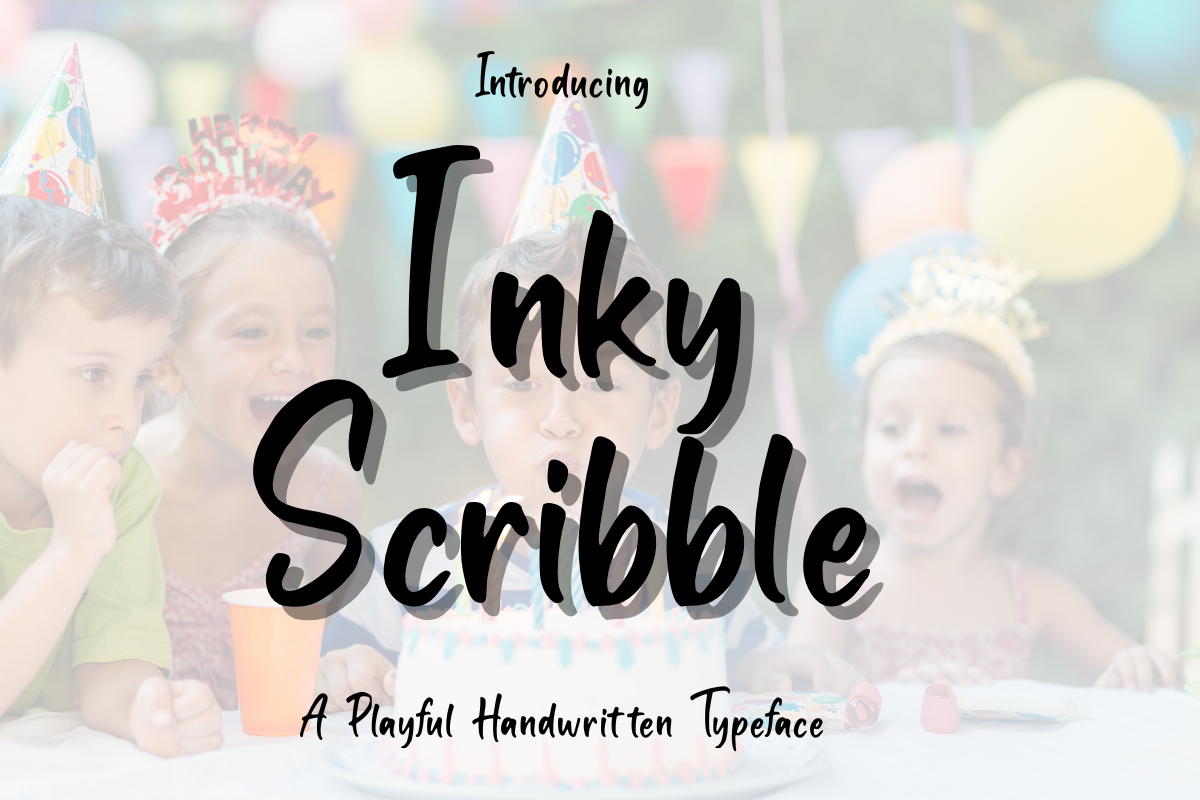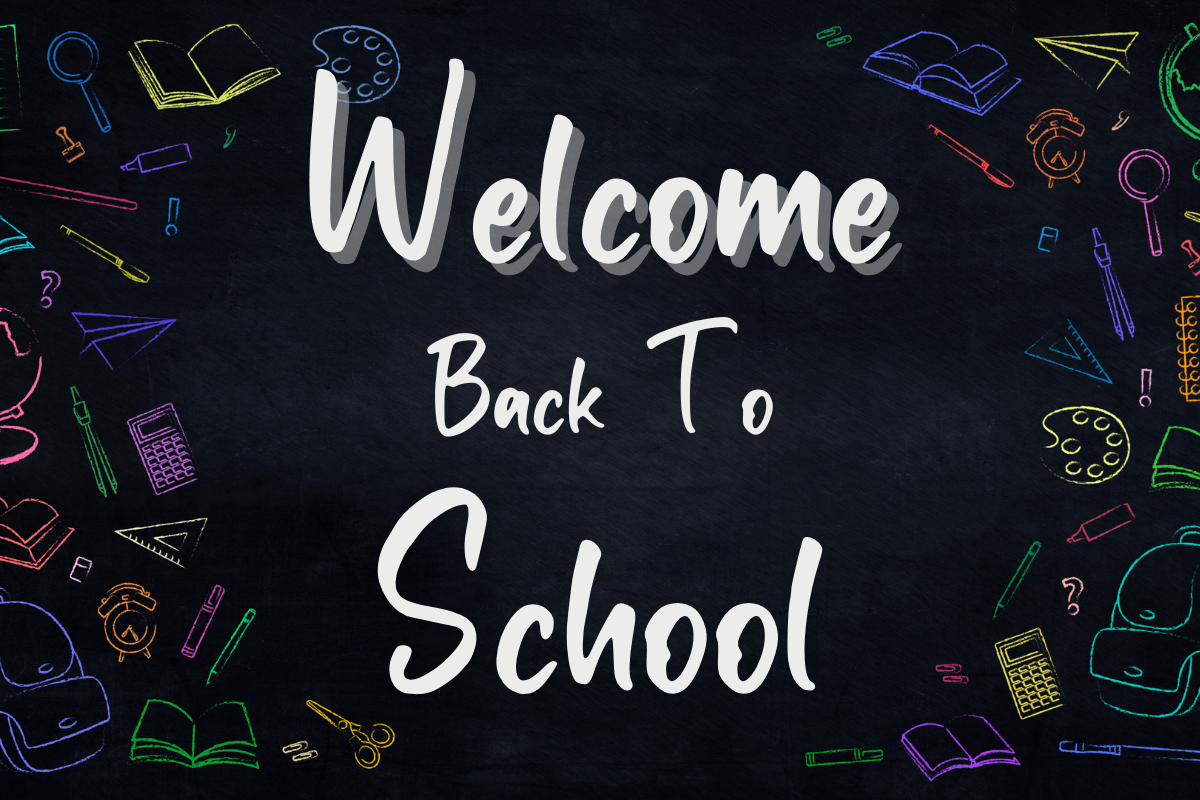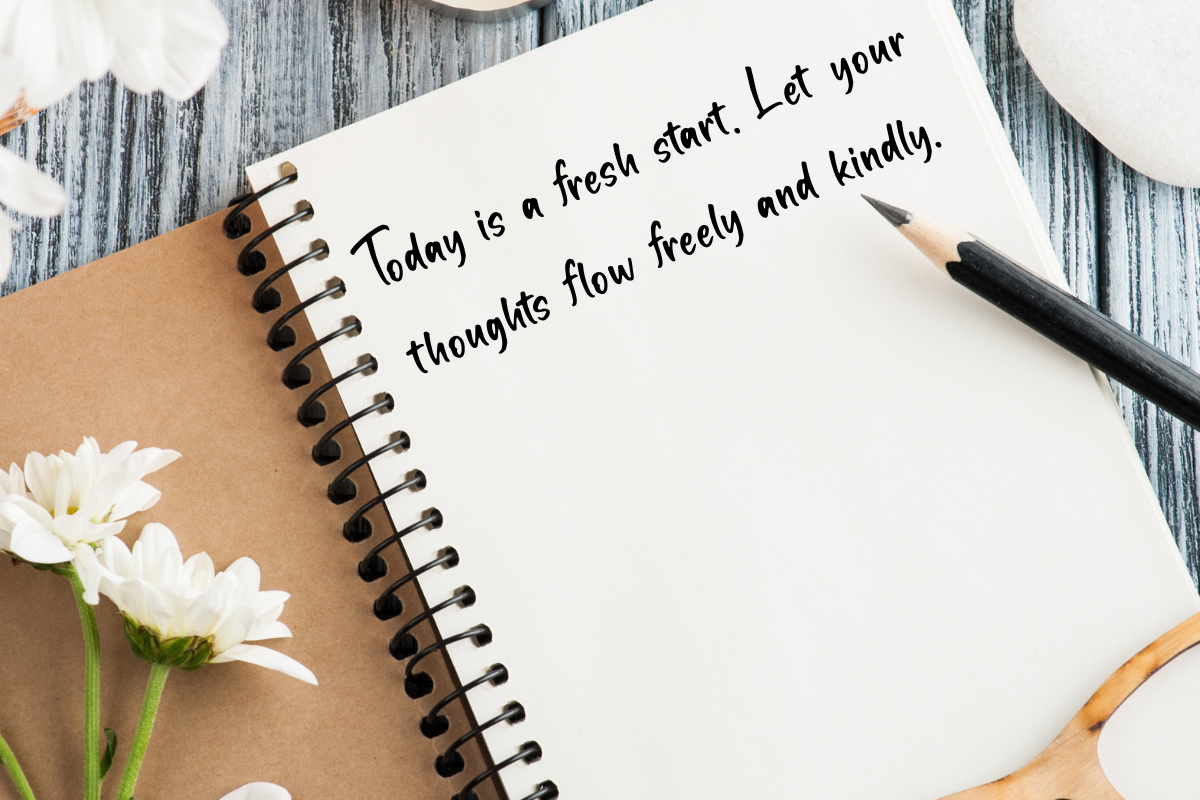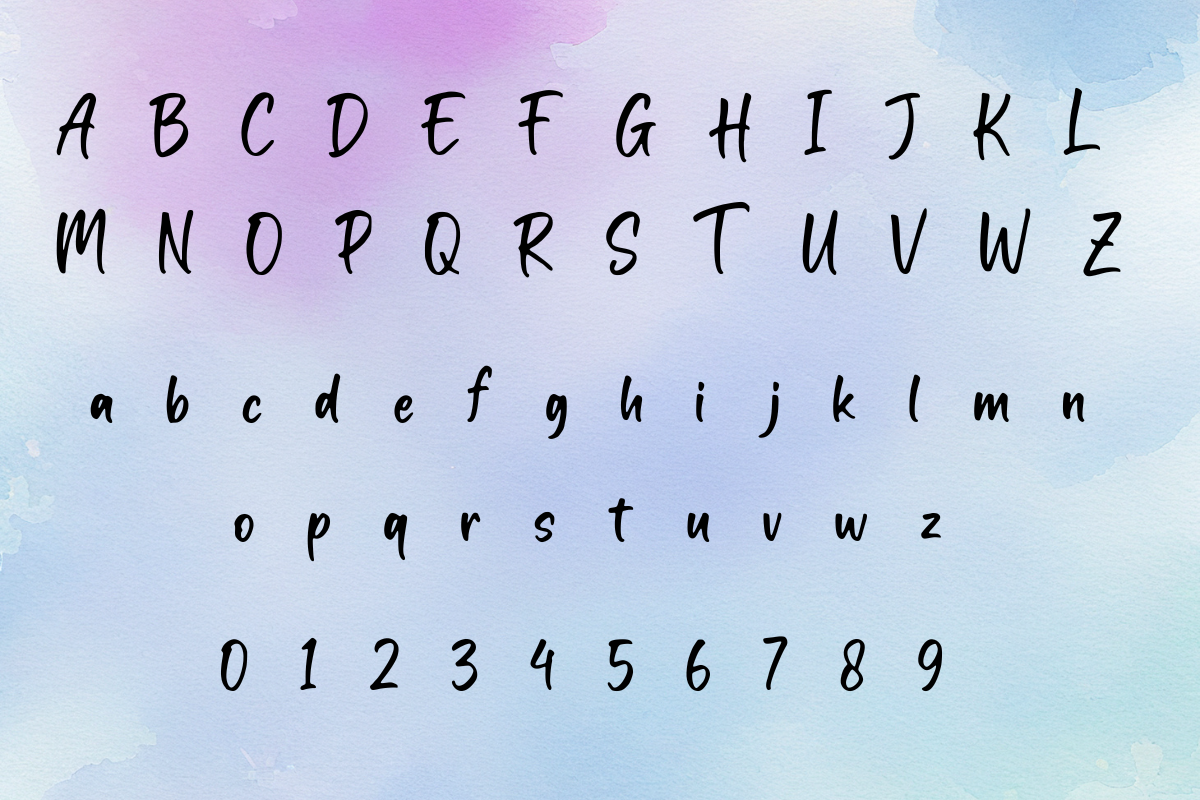
Inky Scribble – A Sketchy Handwritten Font
Inky Scribble is a playful and sketch-style handwritten font that brings personality and charm to any design. It includes standard characters and punctuation, making it perfect for notebooks, quotes, planners, and creative print projects. Compatible with Photoshop, Illustrator, Silhouette Studio, and more.